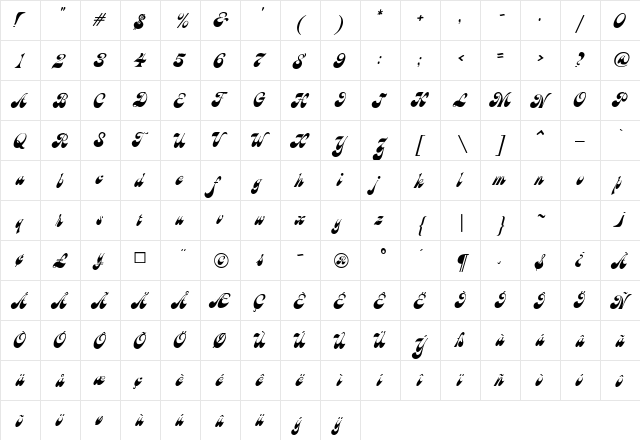
Brandy MF Script
| Style | Script |
Design Context for Brandy MF Typeface
Brandy MF brings a calligraphic fluidity to the page — its connecting strokes and expressive curves give it an unmistakably human quality.
Font Pairing: Combine Brandy MF with a simple geometric sans for maximum contrast — the tension between flowing curves and clean structure is a classic typographic pairing.
Pro Tip: Use Brandy MF for short runs of text — names, titles, or taglines. Extended body copy in script faces tires the eye quickly.